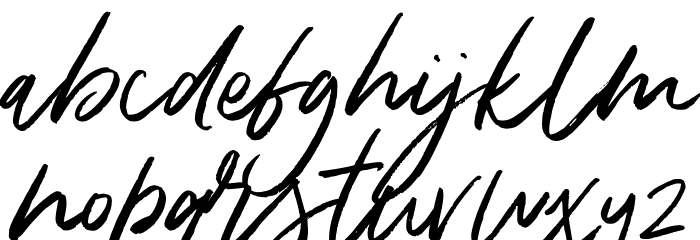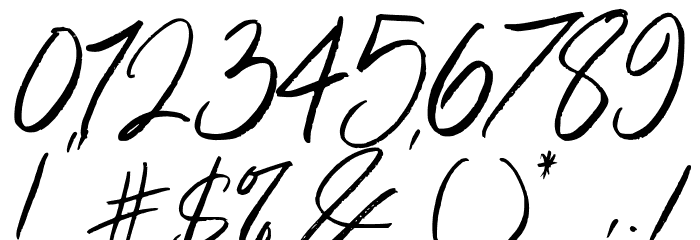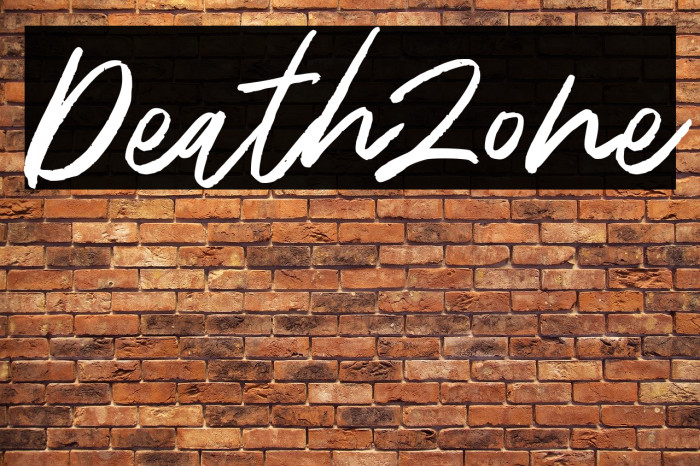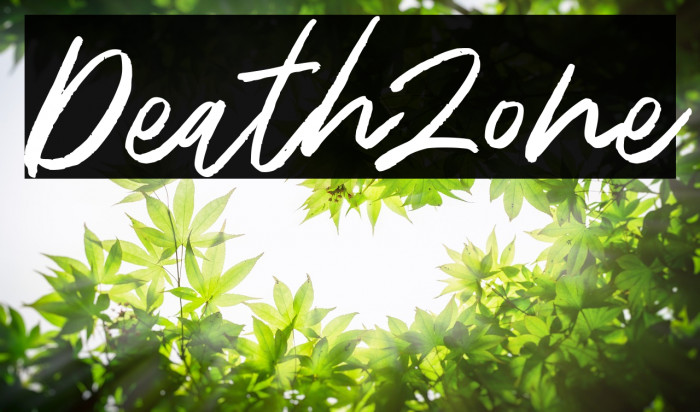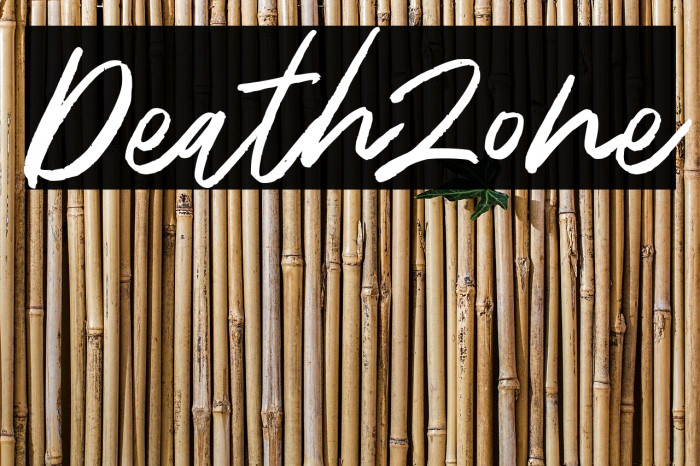
DeathZone Font
This font exhibits a dynamic and expressive handwritten style, characterized by its fluid and cursive letterforms. The strokes are bold and confident, with a natural flow that mimics the movement of a brush or pen. The uppercase and lowercase letters maintain a consistent style, with some letters featuring unique flourishes that add personality. The numerals and special characters are crafted with the same attention to detail, ensuring a cohesive look across all elements. This font's energetic and artistic appearance makes it ideal for projects that require a personal touch.
A bold, expressive handwritten font with fluid, cursive strokes.
- Proposed Projects: Ideal for branding, invitations, greeting cards, and artistic projects that require a personal and dynamic touch.
- Use Case: Logos, Headlines, Artistic projects